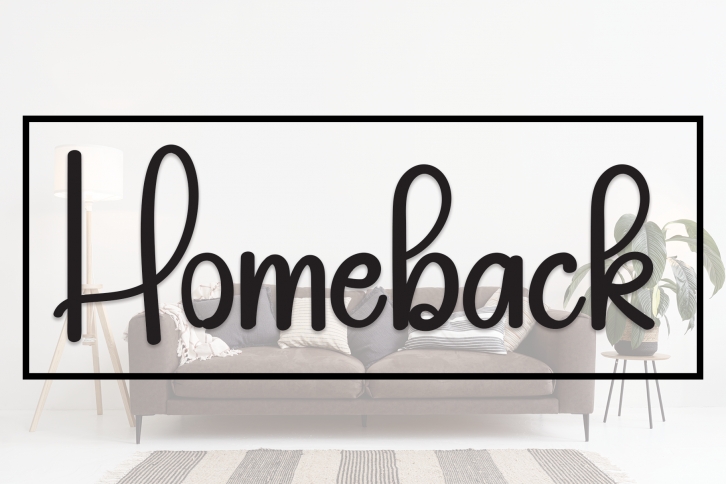
This latest style font is perfect for wall displays, wedding invitations, social media post logos, advertisements, product packaging, product design, labels, photography, watermarks, invitations, stationery and any project that requires a taste for handwriting.